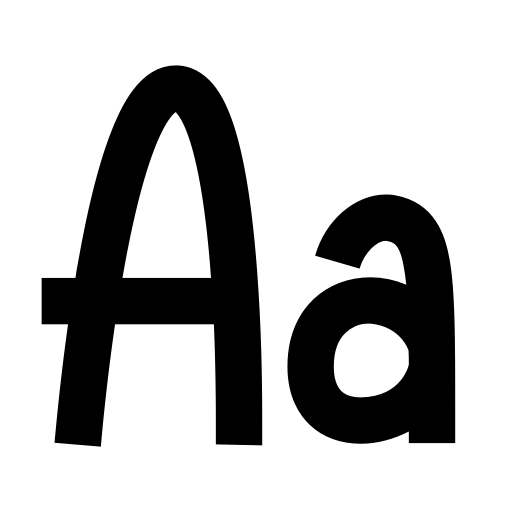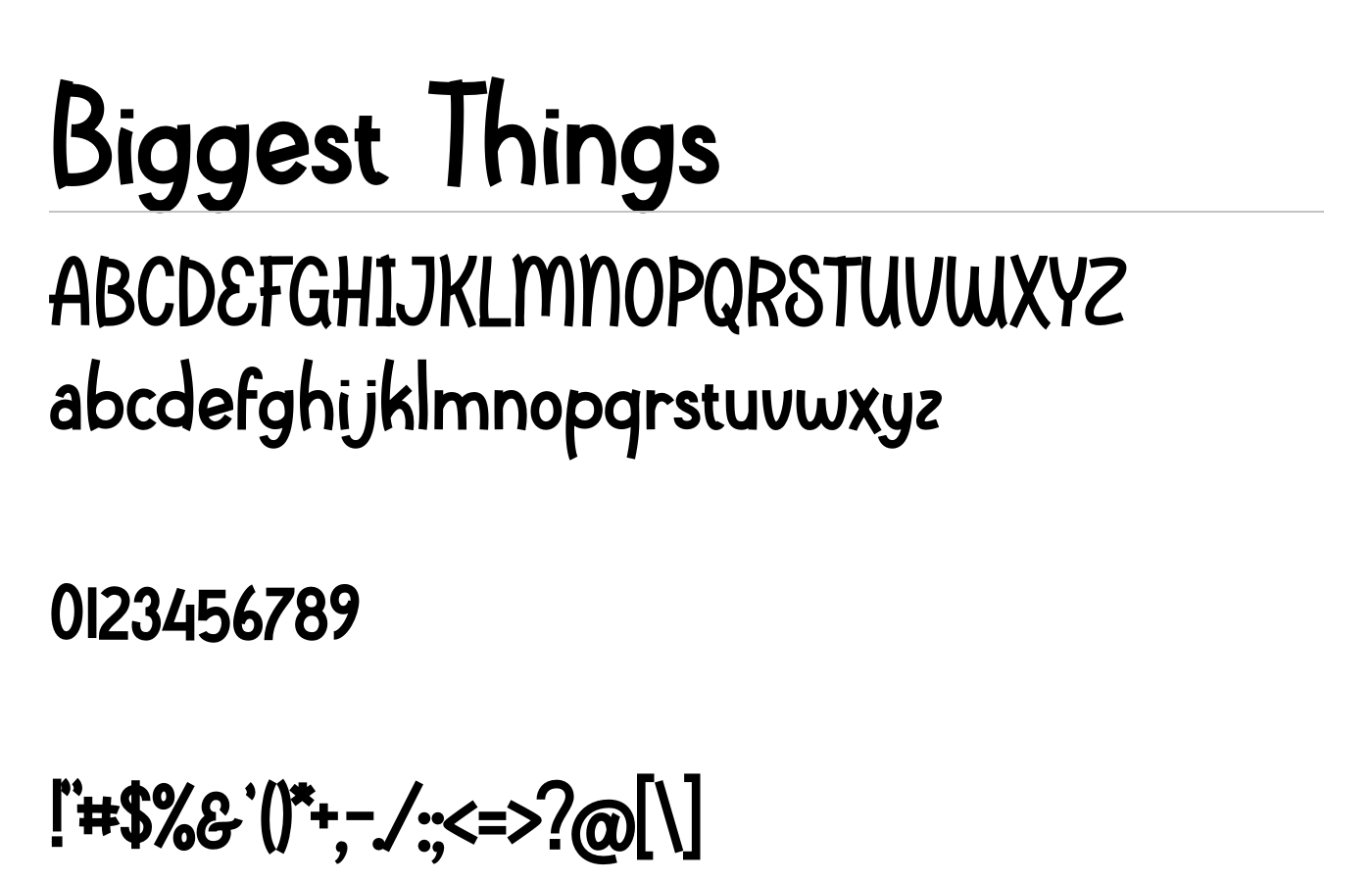
Biggest Things is a playful sans serif font with tall, slightly irregular letterforms that give it a casual and friendly feel. Its medium weight and clean strokes make it easy to read while the quirky shapes add personality, making it ideal for fun, informal designs like children’s books, posters, or branding that wants to appear approachable and lively. This font works best in headings and short bursts of text where its unique character can really stand out.
Biggest Things Font
About Biggest Things Font